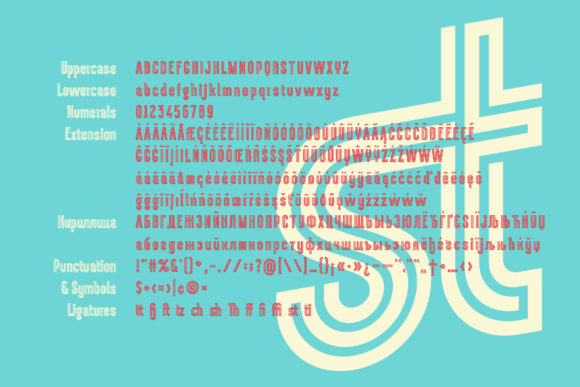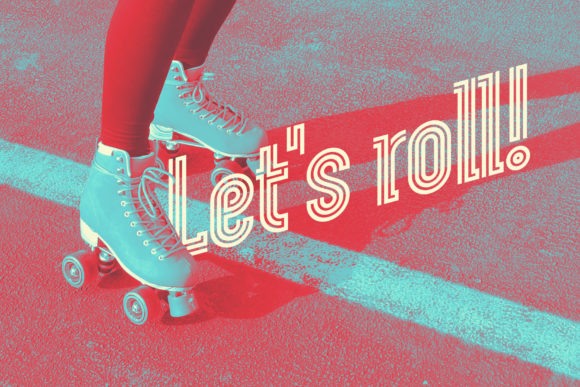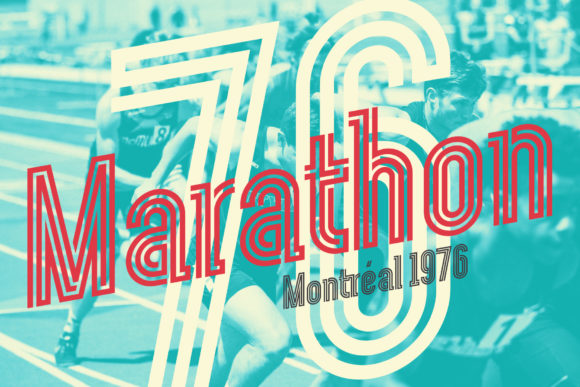
Chokana Font
Chokana is a nostalgic multi-line display font inspired by the 70’s aesthetic, perfect for bright captions and unforgettable logos. It could be the perfect solution if you want to give a lovely retro touch to your designs. Add it with confidence to your creative projects, and they will capture everyone’s attention!